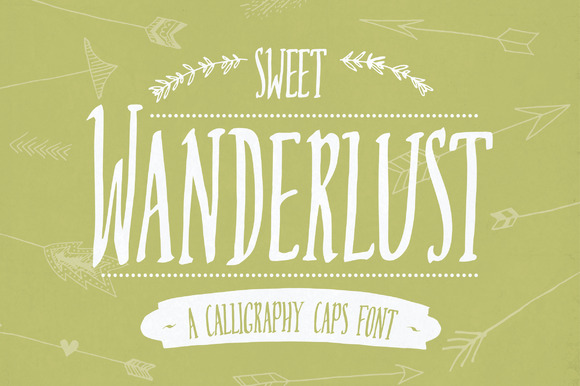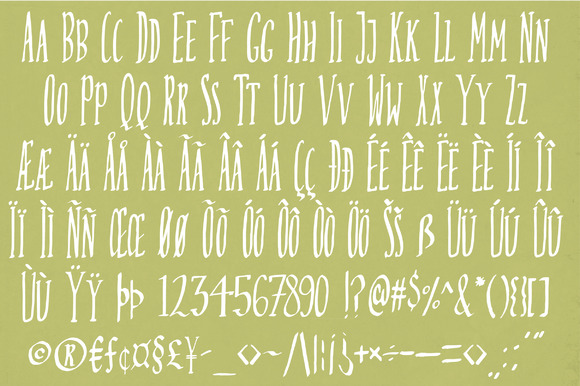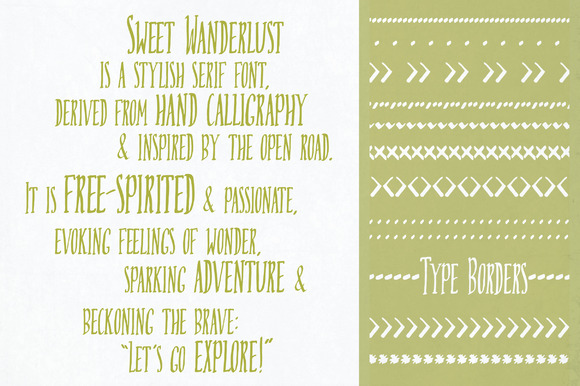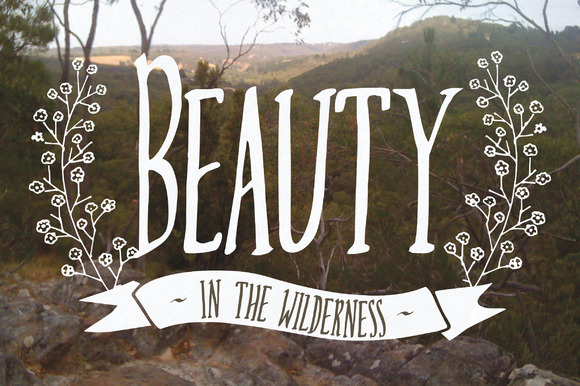
Sweet Wanderlust Font
About Sweet Wanderlust Font
Sweet Wanderlust is a beautiful hand-drawn font. Sweet Wanderlust features perfect imperfections which add a bit of quirkiness to your text.
Sweet Wanderlust is an all caps font (this means there are no lowercase characters included) which makes it great for projects such as shirts, signs or even when printing text such as menu’s or place-cards.
As you can see on the images it comes with all necessary glyphs.